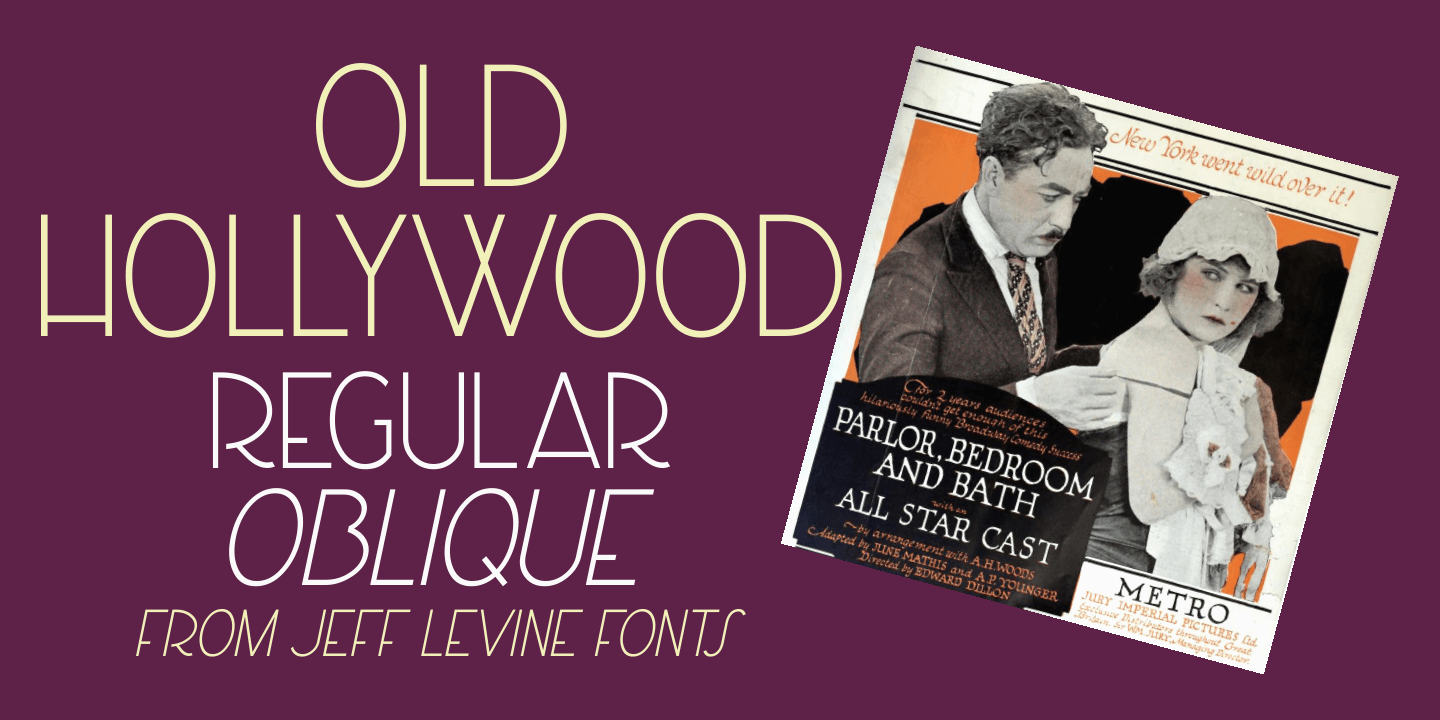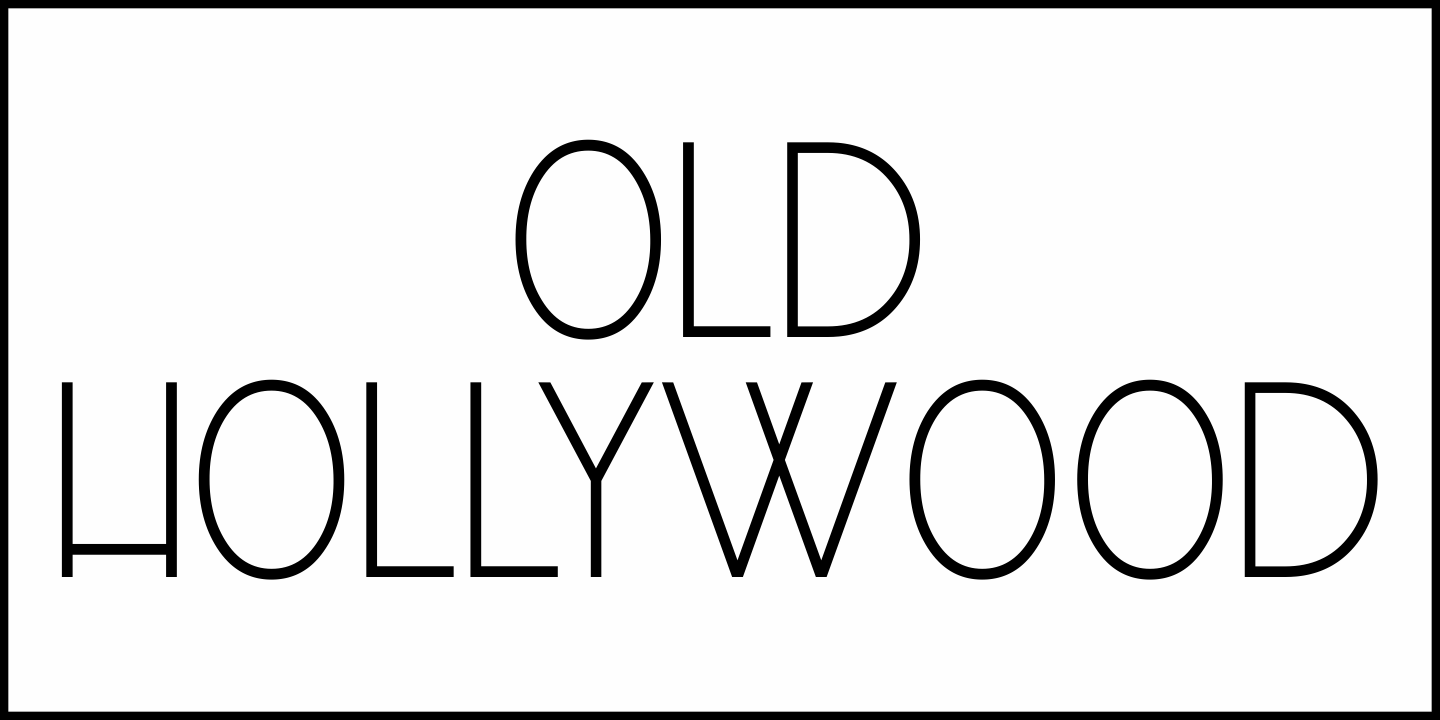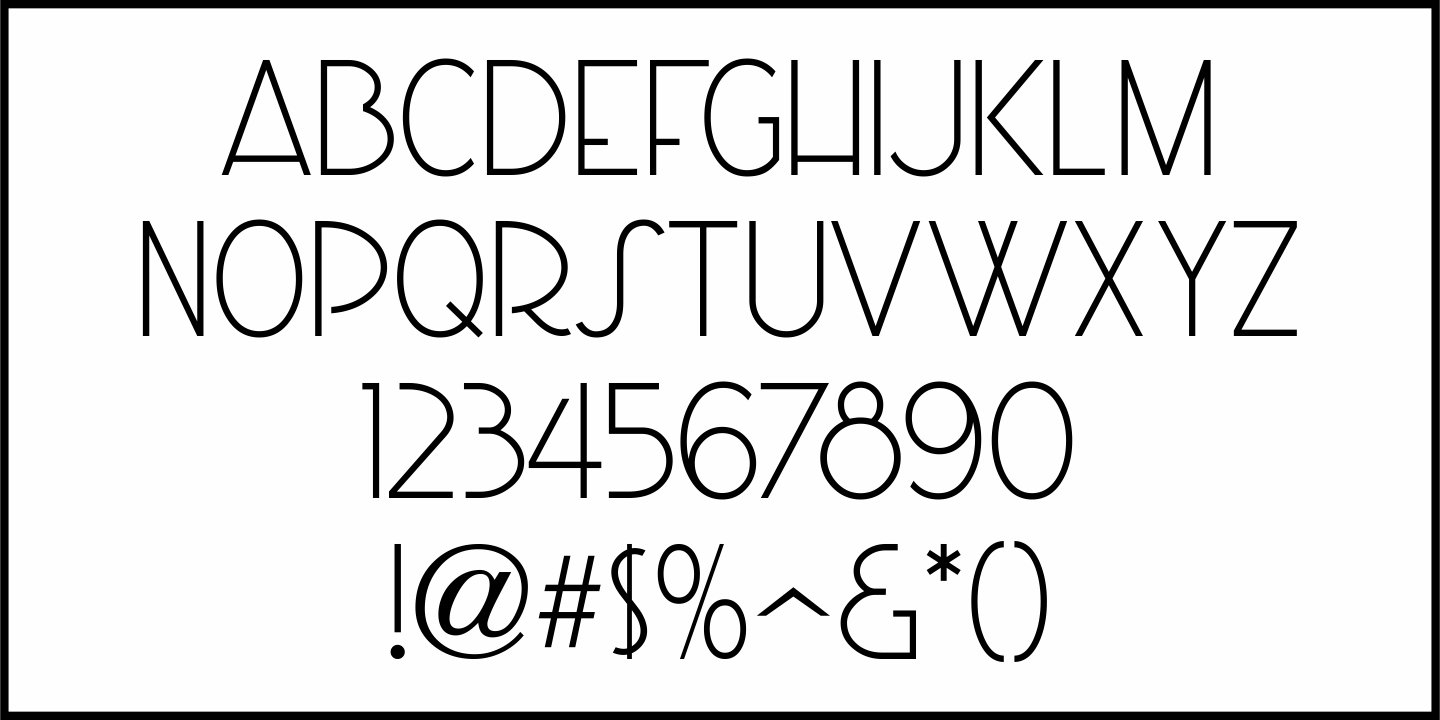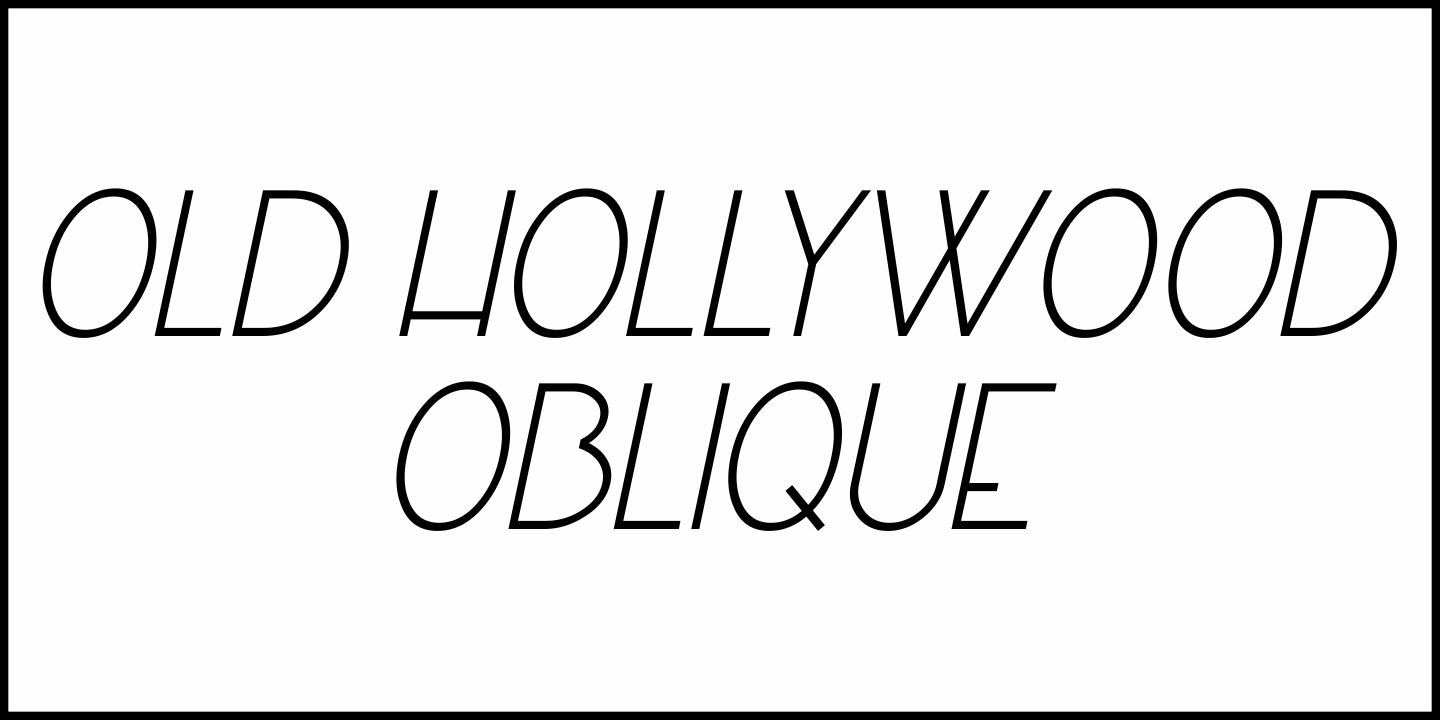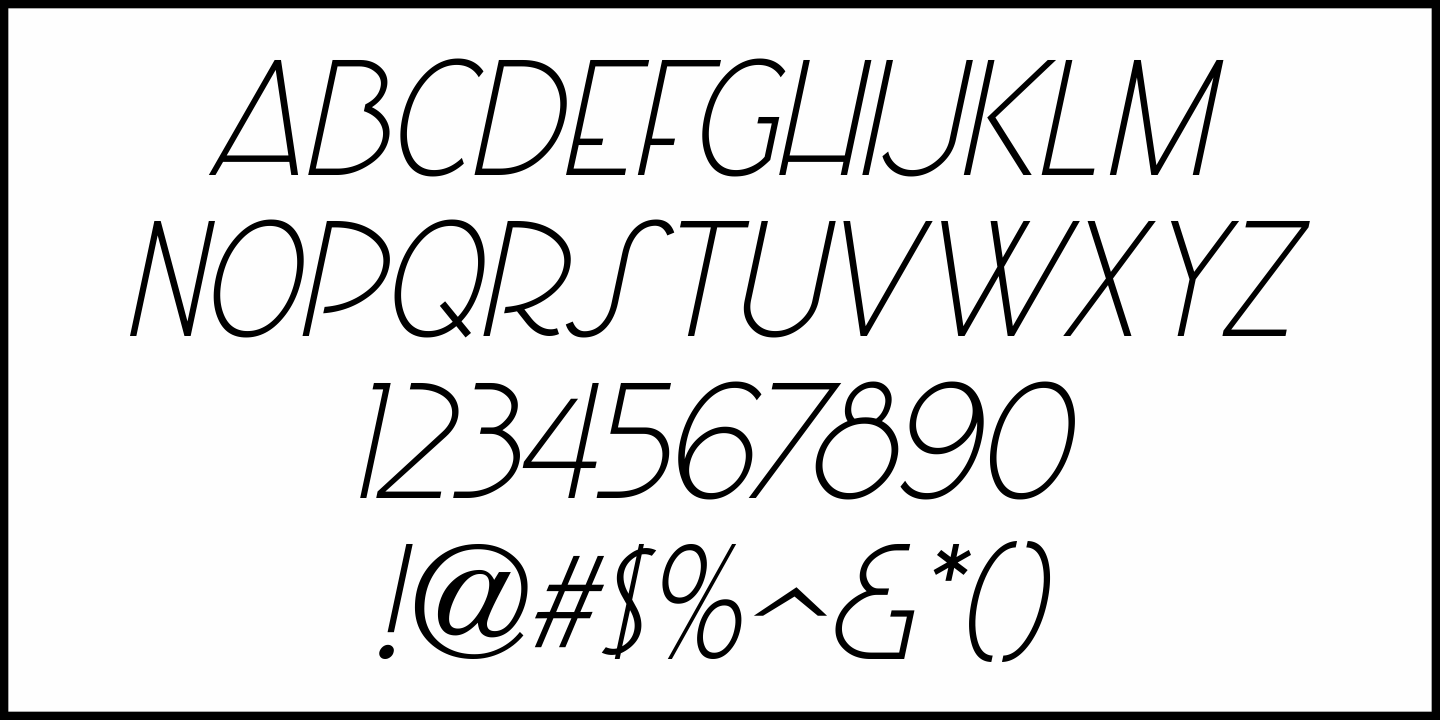
Old Hollywood
In the August 27, 1921 issue of the trade magazine Motion Picture News was an ad promoting the silent film version of "The Three Musketeers".
The name of screen star Douglas Fairbanks was hand lettered in a thin, early Art Deco sans serif style with a clean, easy-to-read look.
Now available as Old Hollywood JNL, this design is available in both regular and oblique versions.